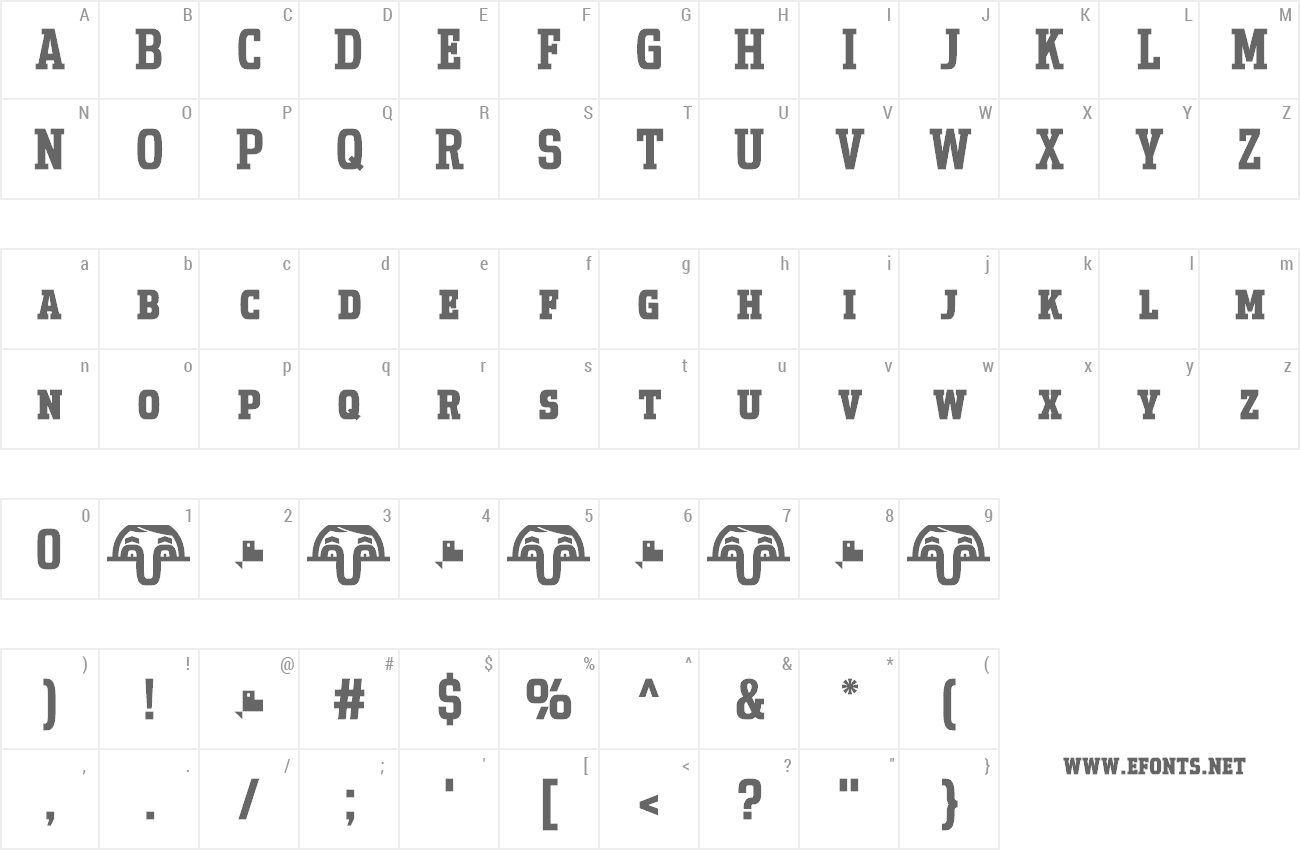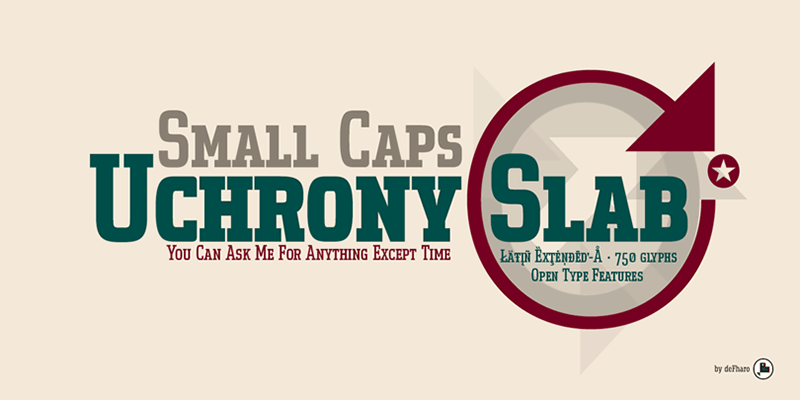
| Font name: | Uchrony SC |
| Author: | deFharo |
| Note by deFharo | |
Uchrony Small Caps is a condensed proportion slab serif typeface. The font family is made with 6 weights (Extra Light, Light, Regular, Medium, Bold and Extra Bold). ================================= FULL VERSIONS & COMMERCIAL LICENSES https://defharo.com/fonts/uchrony-slab-serif/ |